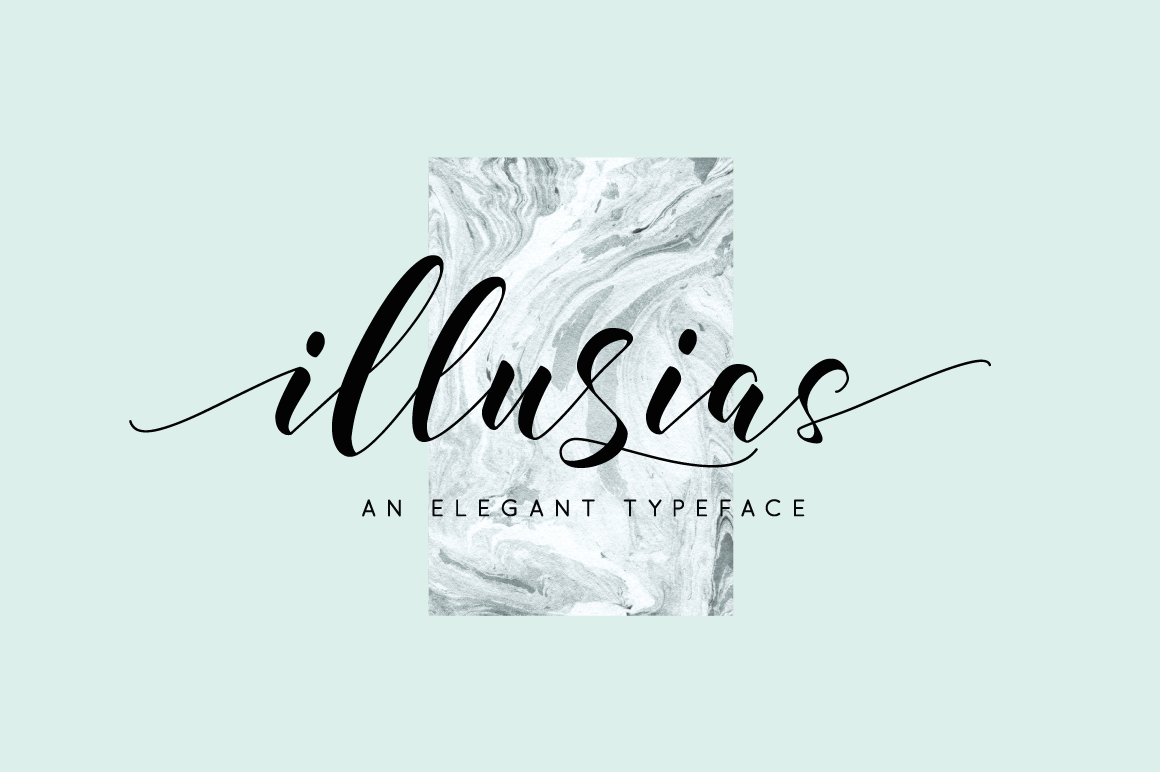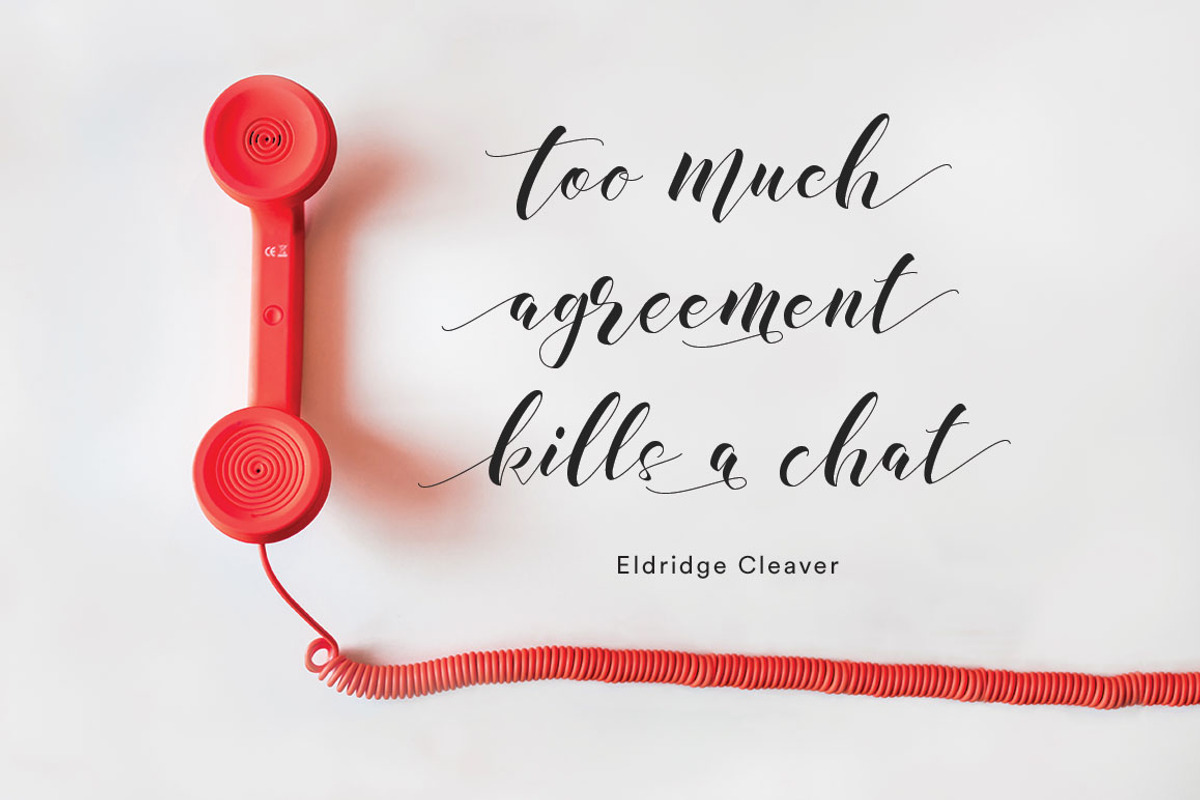
illusias elegant font
illusias is an elegant font.
illusias typeface is suitable for any design needs, modern design, elegant minimal design, branding, blog design, modern advertising design, invitation, wedding card, love quote, Home decor, Book/Cover Title, wedding Invitation, special events, birthday, custom mug, pillow, t-shirts, any elegant calligraphy needs and more.
illusias typeface ( .ttf & .otf) comes with upper and lowercase Standard Characters, Punctuation, Numerals. And other Glyphs variation of the OpenType features such as Standard Ligature, Stylistic Alternate and Stylistic Set (ss01, ss02, ss03), and Swash.